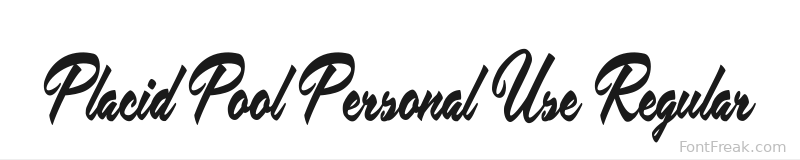
Placid Pool Personal Use Regular
About Placid Pool Personal Use Regular
Placid Pool Personal Use Regular is a stunning display font crafted by the talented Billy Argel Fonts. This typeface belongs to the script category, characterized by its elegant and flowing lines that evoke a sense of tranquility and leisure. The strokes exhibit a moderate weight, balanced by a subtle contrast that enhances readability while maintaining a casual charm. The spacing is generous, allowing for a comfortable reading experience, and the decorative elements, such as the graceful curves and swirls, add a unique flair that sets it apart from standard scripts.
This font is particularly well-suited for a variety of creative applications. Its inviting style makes it an excellent choice for wedding invitations, where it can convey warmth and love. Additionally, Placid Pool Personal Use Regular is perfect for movie posters, providing an artistic touch that captures the essence of storytelling. For restaurant menus, this font can elevate the dining experience, adding a sophisticated yet relaxed vibe. Content creators and bloggers can also utilize this font for social media graphics or website headers, as it draws attention without overwhelming the viewer.
Targeting graphic designers, small business owners, and content creators, Placid Pool Personal Use Regular font free download offers a versatile option for those looking to enhance their projects with a touch of elegance. Its unique characteristics make it a favorite among users seeking a font that balances creativity and functionality.
What truly makes Placid Pool stand out is its ability to evoke a sense of calm and creativity. The harmonious design invites viewers to engage with the content, making it a delightful addition to any project that aims to communicate style and personality. Whether for personal or professional use, this font is sure to leave a lasting impression.